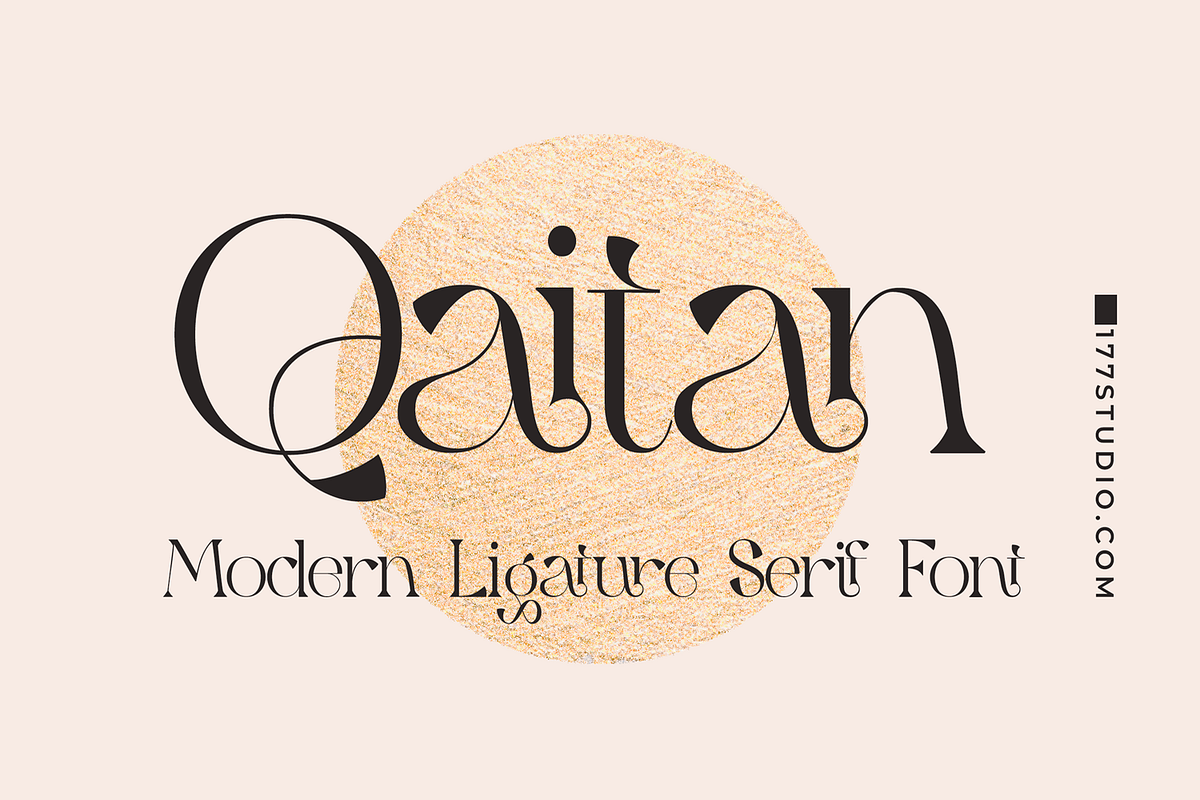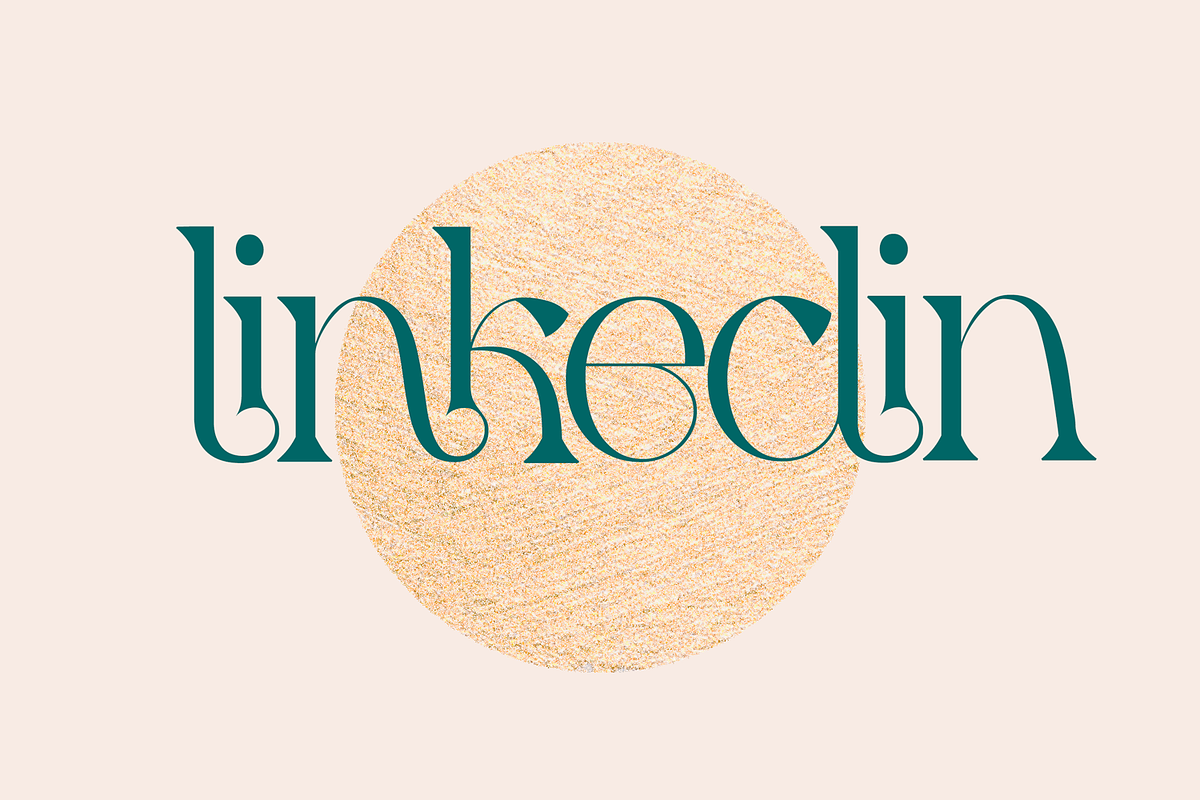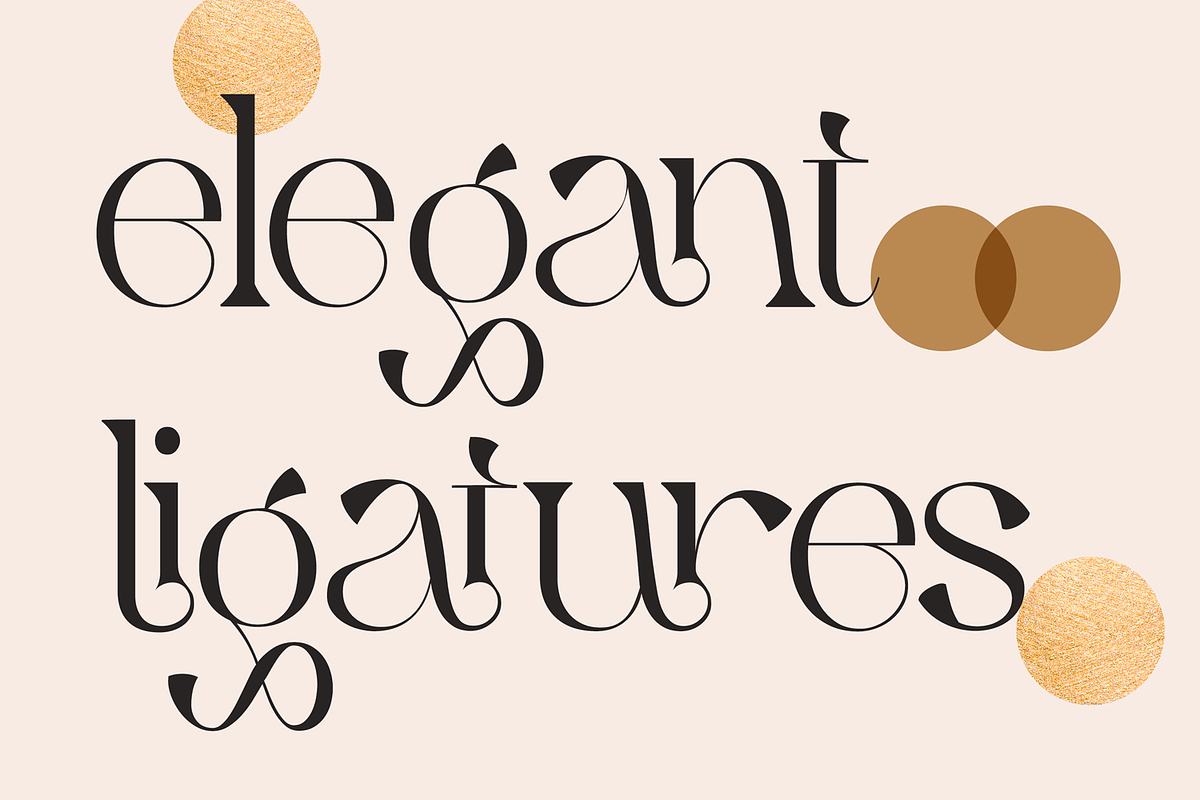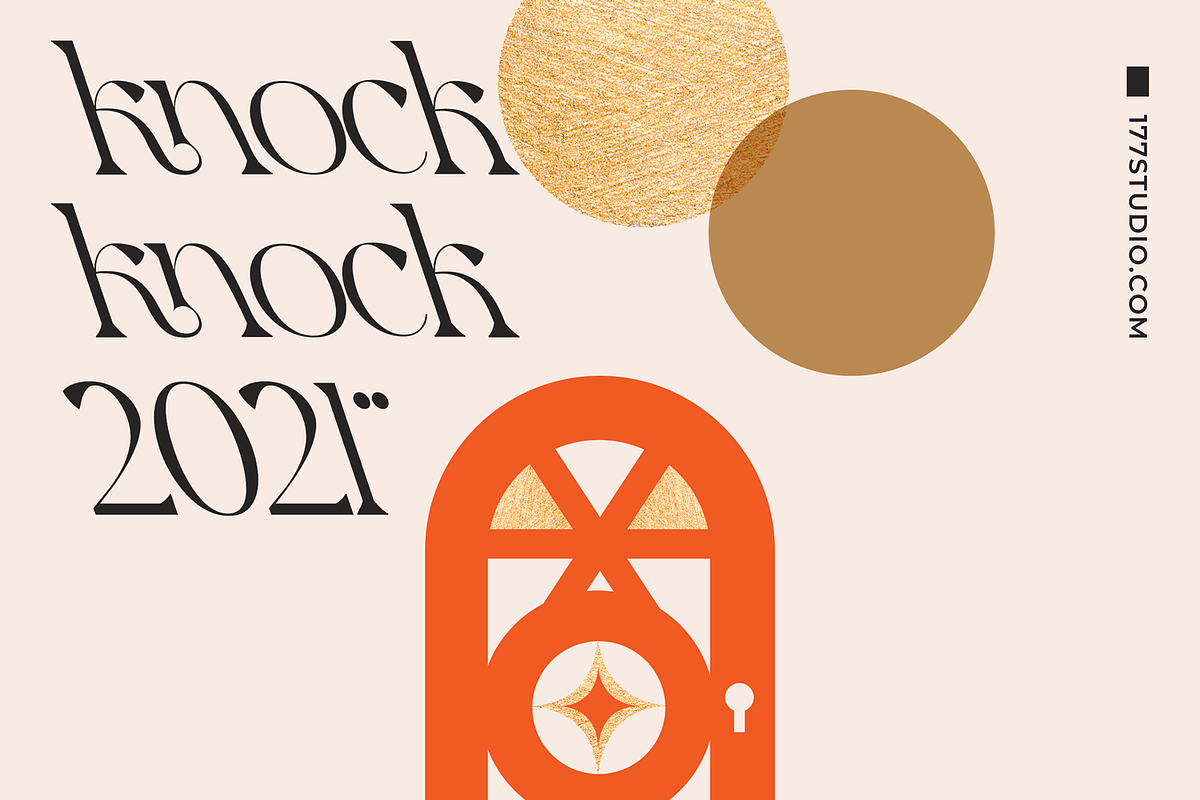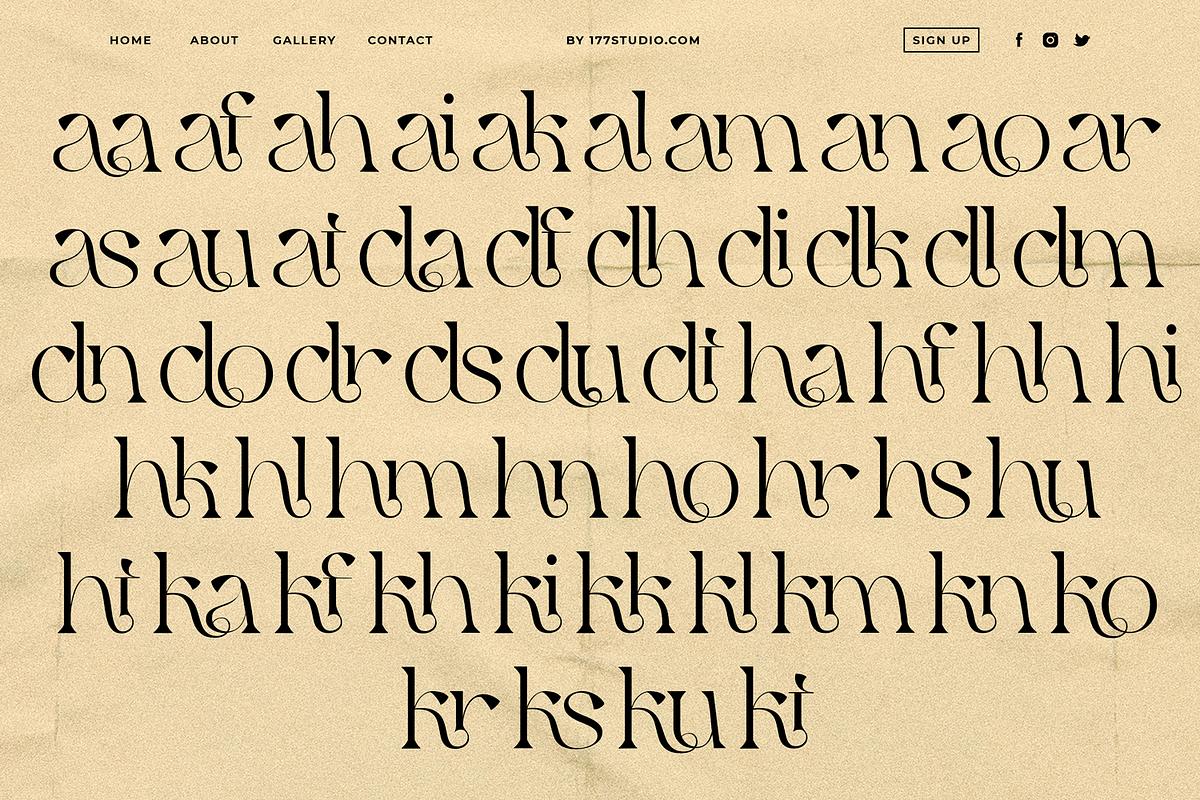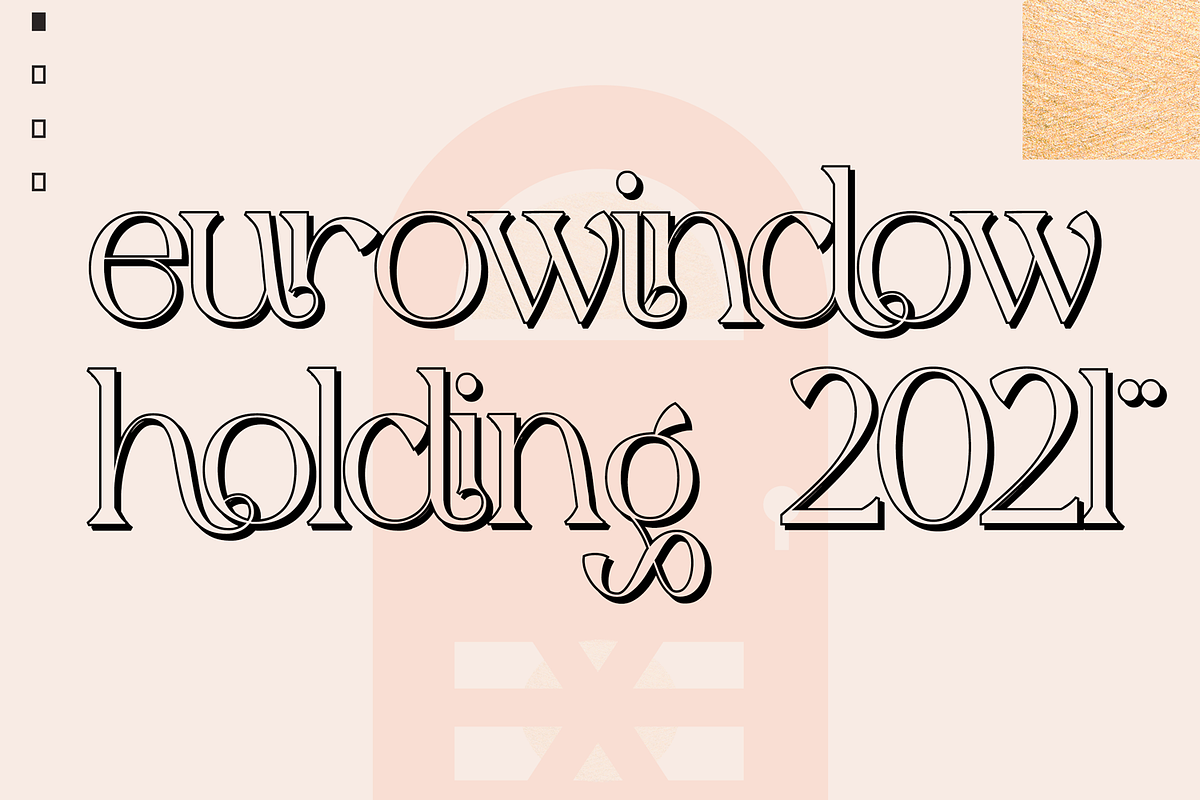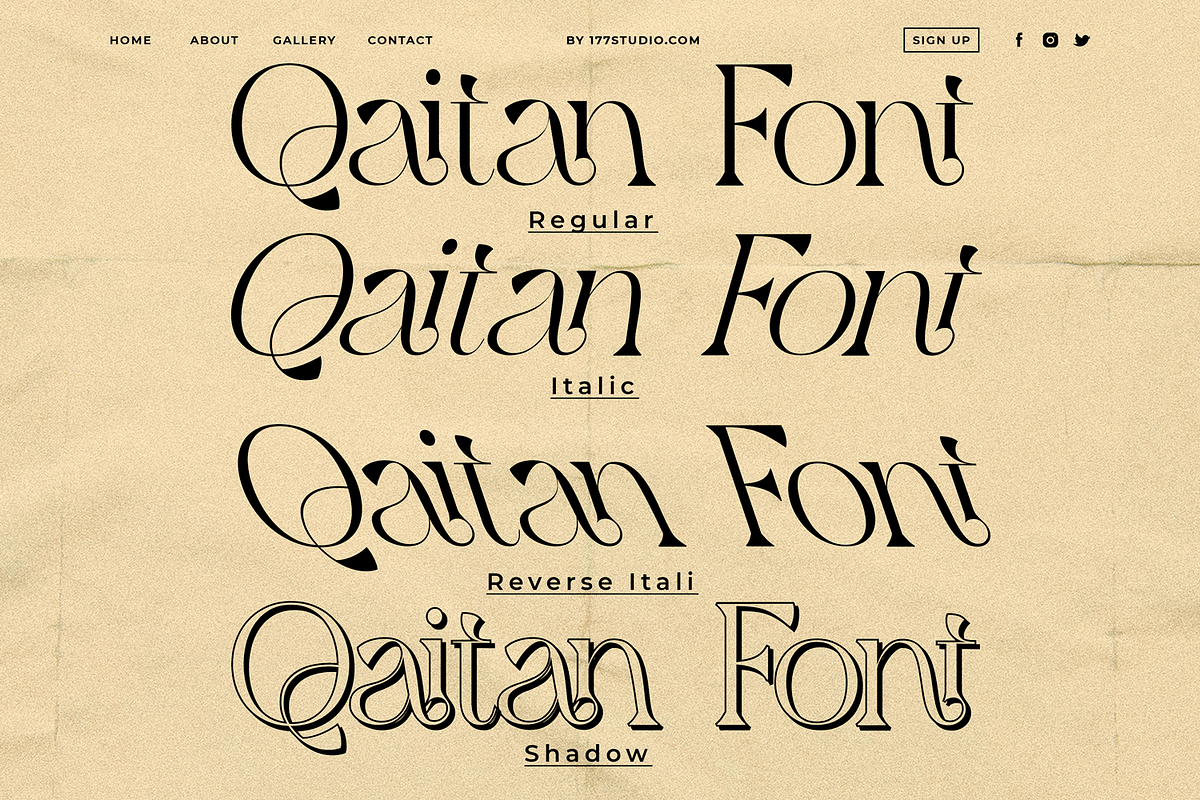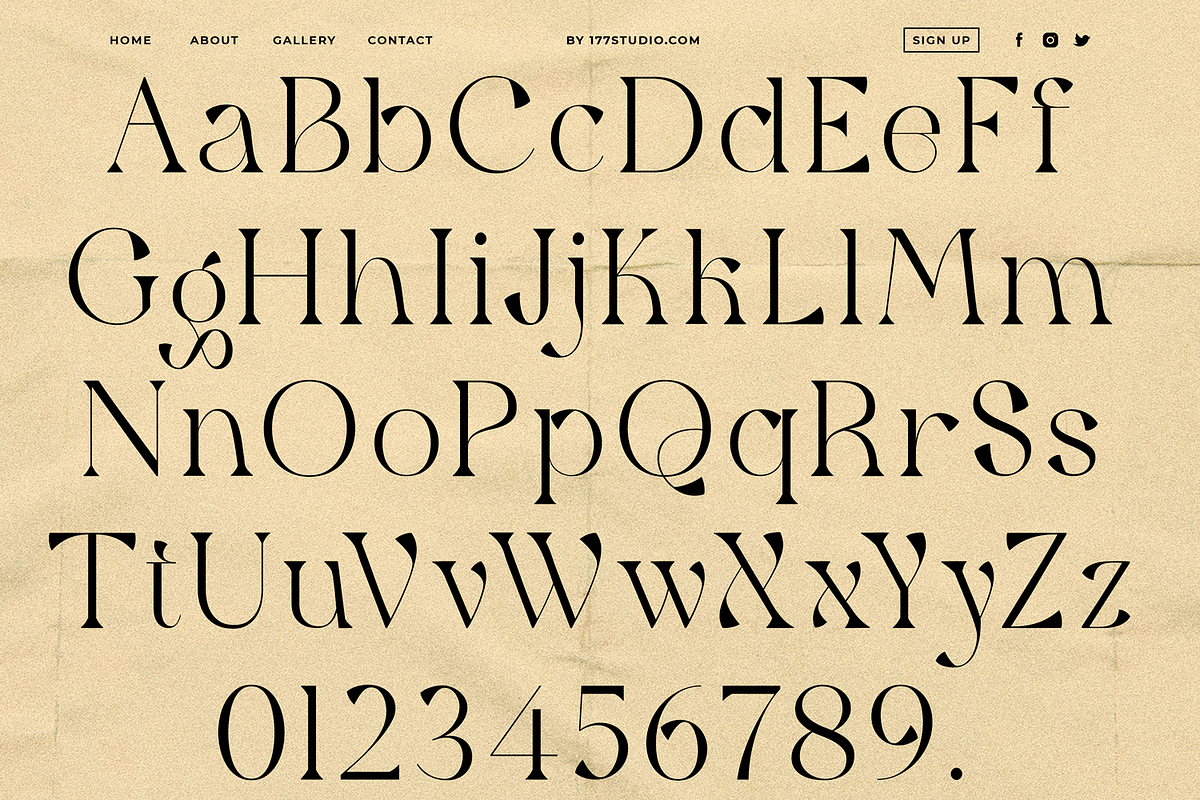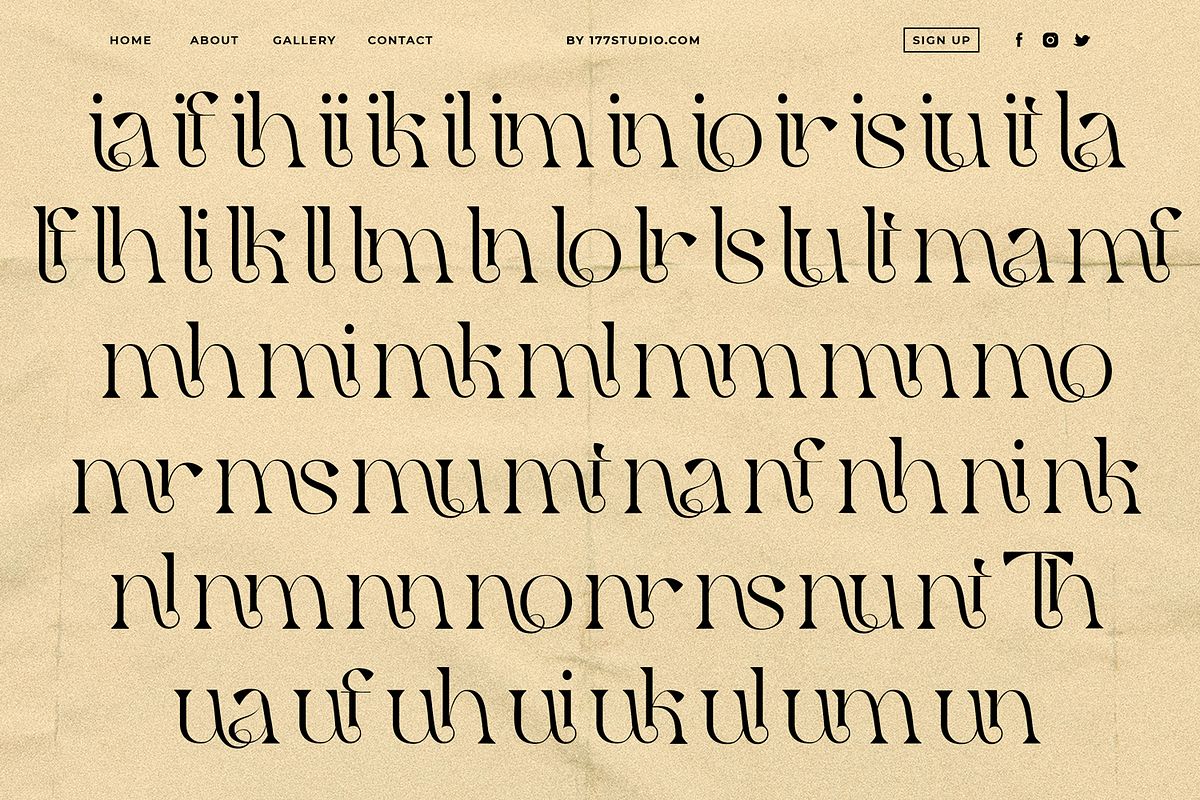
Qaitan – Modern Serif Font
Qaitan Font is a stylish retro serif font with a touch of modern ligatures. It looks amazing at display sizes and is easily readable in text size. There are two versions of this font : Regular and Shadow. Qaitan is a serif font made mainly for headlines, titles, and other short texts and is well-suited for advertising, Vintage mood board, Branding, Logotypes, Packaging, Titles, Editorial design and modern and vintage design.
To make it look more unique, here we prepared some ligatures:
aa af ah ai ak al am an ao ar as au at da df dh di dk dl dm dn do dr ds du dt ha hf hh hi hk hl hm hn ho hr hs hu ht ka kf kh ki kk kl km kn ko kr ks ku kt ia if ih ii ik il im in io ir is iu it la lf lh li lk ll lm ln lo lr ls lu lt ma mf mh mi mk ml mm mn mo mr ms mu mt na nf nh ni nk nl nm nn no nr ns nu nt Th ua uf uh ui uk ul um un uo ur us uu ut ...
Qaitan is also included full set of:
- Special Ligatures